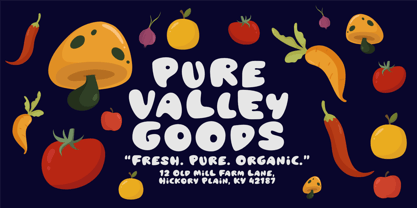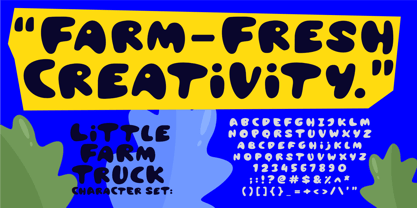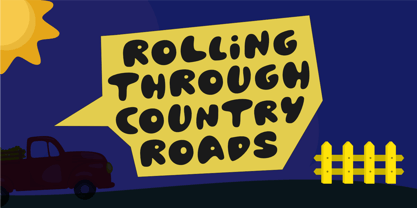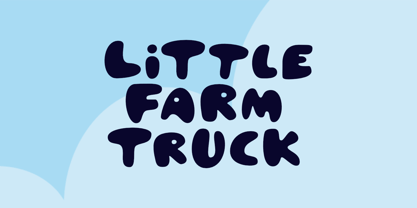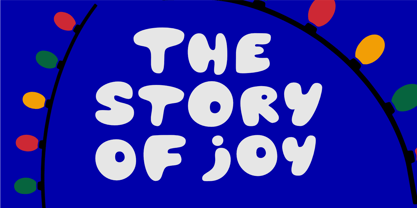
Little Farm Truck
by Epiclinez
The Little Farm Truck Font Family was designed by Aldy Sidik and published by Epiclinez. Little Farm Truck contains 1 styles. More about this family
Little Farm Truck is a cute, bold, playful display font inspired by country roads, farm adventures, and the charm of little trucks rolling through sunny fields. Packed with bubbly curves and friendly shapes, this font brings wholesome, countryside fun to every project. Perfect for kids’ books, farm-themed graphics, product packaging, posters, stickers, signs, and playful branding, Little Farm Truck delivers a warm rustic vibe mixed with joyful energy. Its chunky, rounded letters feel hand-crafted and full of character—like a small truck hauling creativity wherever you need it. Whether you're designing for little farmers, creating cheerful labels, or adding a touch of rural charm to your artwork, Little Farm Truck makes every word feel bright, happy, and ready to roll. Bring the heart of the countryside to your designs with this adorable, farm-fresh display font!
Designers: Aldy Sidik
Foundry: Epiclinez